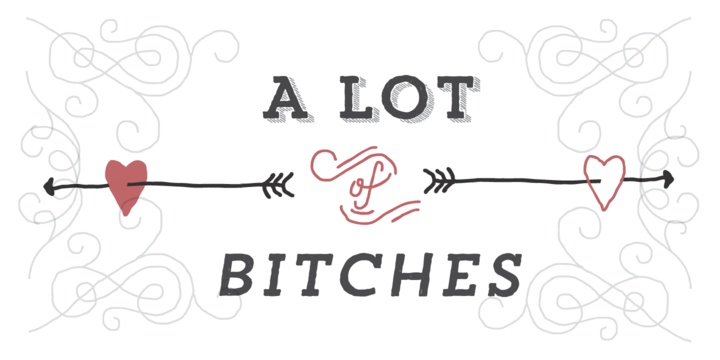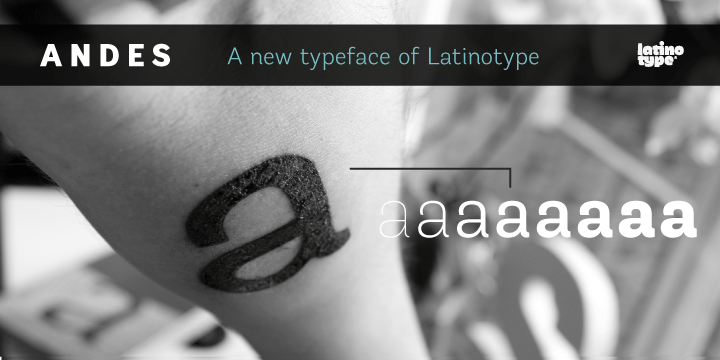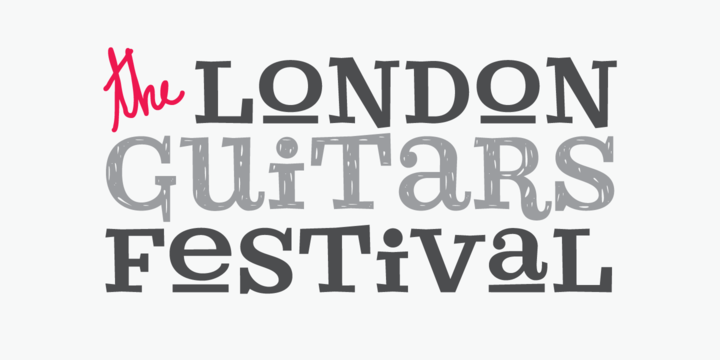
Andes
Andes is incredibly beautiful and sophisticated font is crafted by Daniel Hernández. It is also typical display lettering with neo-humanist features. The font has different terminals and a number of elements ensures it mixed typography look. The lettering is a typeface with 10 Upright weights, 10 Italics & Condensed version. These usually range from Ultra … Read more
Courtney
Courtney is basically a display font, an archetypal unicase entwined impeccably with thick and irregular strokes. It comprises of a diverse set of ligatures that makes Courtney a very vibrant font. It is an ideal choice for short texts, logos, magazines, and a lot more. It also possesses a large amount of connectors such as … Read more
Trend hand made
Trend hand made was designde by Daniel Hernández,Paula Nazal Selaive . Trend hand made font is a layer font. This font is after last trend font, and have some more studies then other .  Trend tries to capture the aesthetics of fashion or even fashion itself . Download Trend hand made Font Details Foundry: Daniel Hernández,Paula Nazal Selaive … Read more
Sanchez
This font from Latinotype has been awarded as the best font in 2011 by the myfonts.com website. Sanchez is a type of serif typeface which has very strong similarities with the well famous Rockwell. The stability for this font type was provided by the designer Daniel Hernández rounded off the edges to give a smooth look also. It … Read more
Guadalupe
Daniel Hernández designed Guadalupe keeping the fashion industry in mind and this font family is well suited for the fashion and luxury magazines,  Page 3 headlines, fashion destinations, logotypes for its 2 versions the classy Roman Regular and the highly expressive Gota. They belong to the family of Didots which are known for the refined explanations. … Read more
Merced
Merced was designed by  Daniel Hernández . Merced font is a fresh, curly sans serif. This font can be use in number of possibilities for you to write words, texts or paragraphs. Languages include: Central European , Basic Latin, Western , Euro, Baltic, Turkish , European, Romanian and Pan Africa Latin. Get Merced  font on MyFonts Merced font detail Foundry: Daniel Hernández Released:  Apr 4, … Read more
Frutiger
Frutiger was created by Adrian Frutigerin the year 1968, this amazing font was originally custom-built to extend a signage system ideally suited to the structural design of the new Charles de Gaulle Airport situated outside Paris. The font is simple, clean, and dynamic sans serif type. It is also known for being highly legible. Frutiger is … Read more